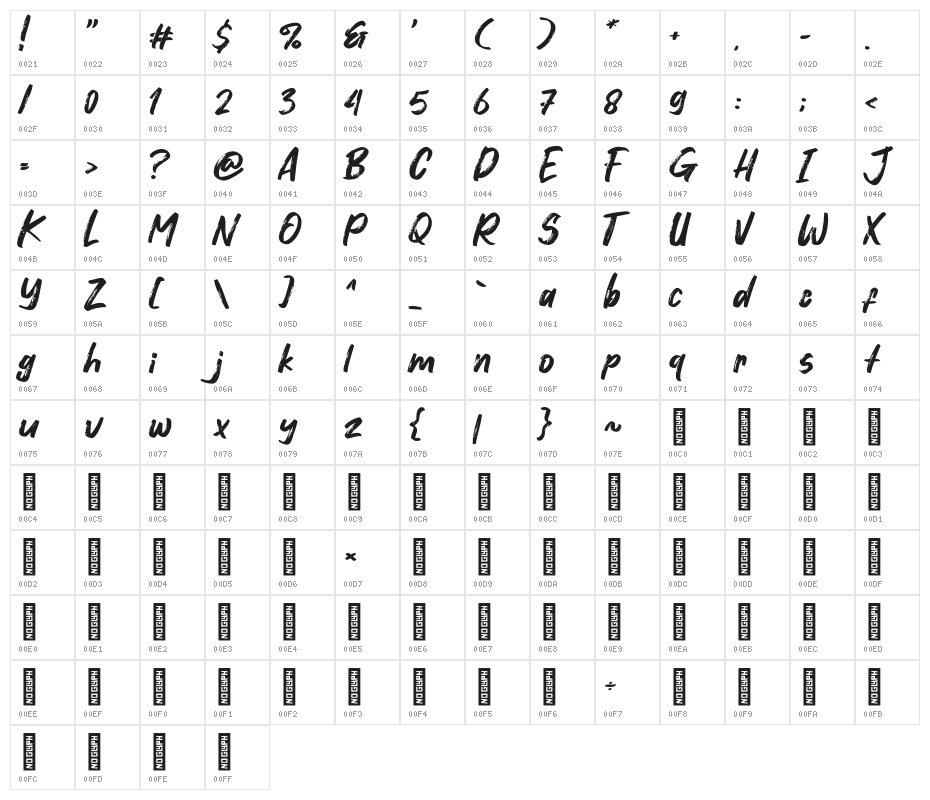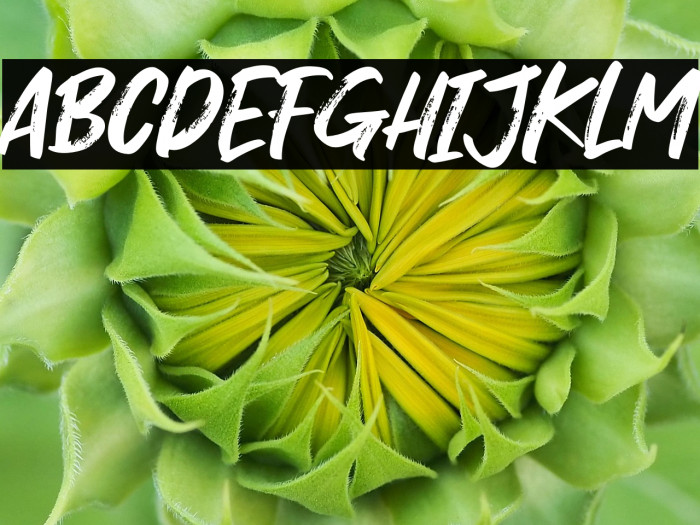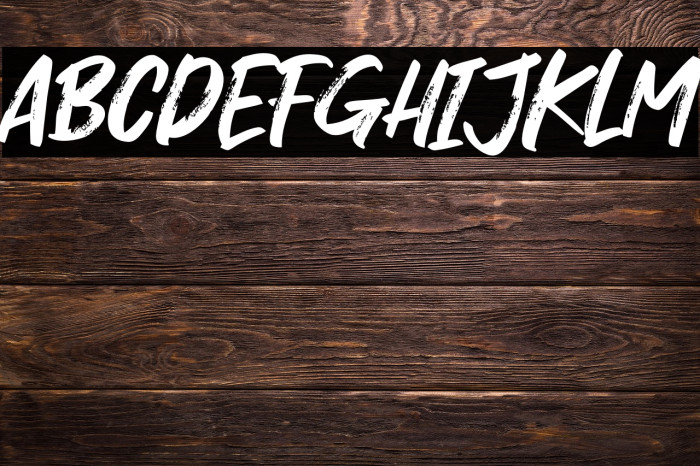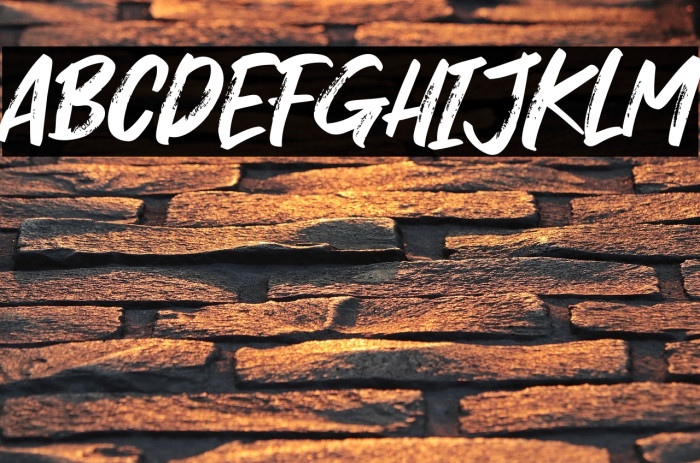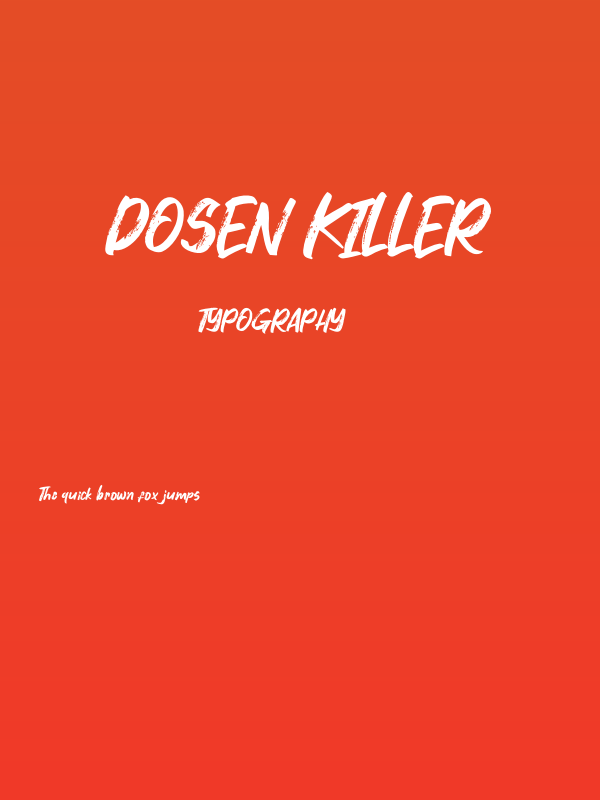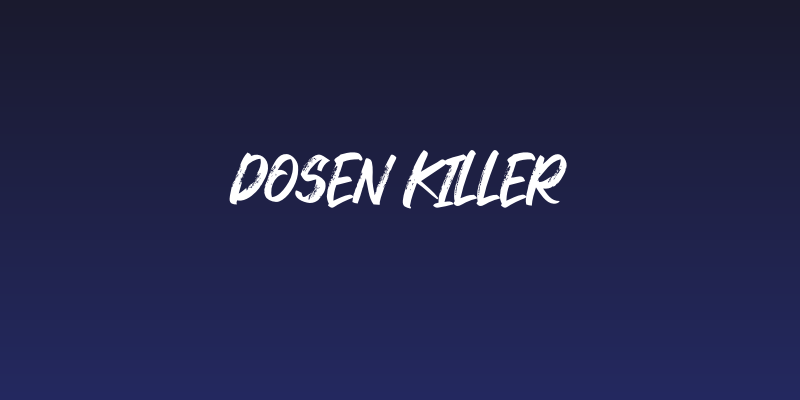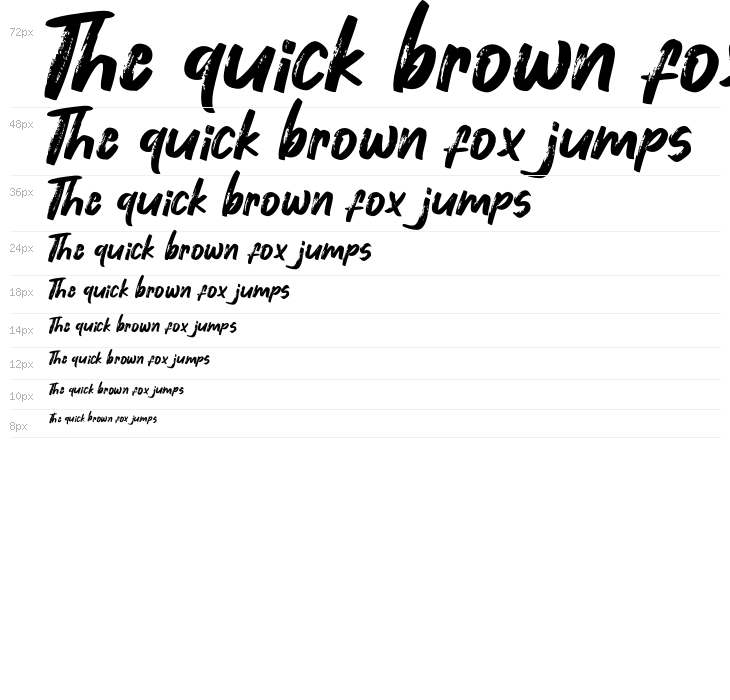
Dosen Killer Font
Dosen Killer Description
This font features a bold, brush-like style with a distressed texture that gives it a dynamic and energetic appearance. The letters are slightly slanted, adding a sense of movement and urgency. The uppercase and lowercase characters maintain a consistent style, with rounded edges and varying stroke widths that enhance its hand-painted look. The numbers and special characters follow the same aesthetic, ensuring uniformity across all glyphs. This font's unique texture and bold presence make it ideal for projects that require a strong visual impact.
| Overall Style | Modern, Artistic |
| Proposed Projects | Ideal for posters, album covers, branding, and any design needing a bold, artistic touch. |